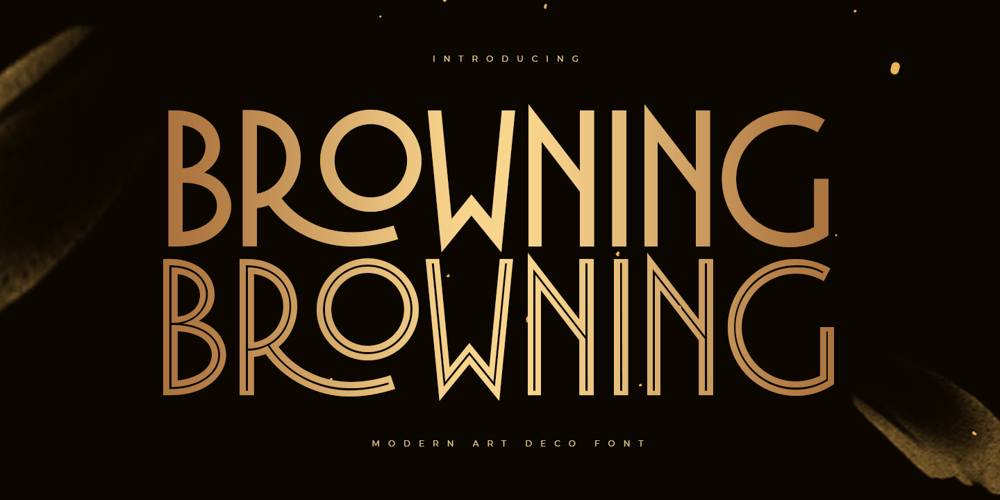
Browning
Browning font
Browning Font Family was designed by Zamroni Hamzah and published by Sensatype Studio. Browning contains 2 styles and family package options. A Luxury Modern Art Deco font that we created special for elegant branding needs, with extra ligatures in unique shape will be ready to add value of your brand. It so nice to leverage designer or product owner that need solutions to make their design look more Luxury and modern. And specially for Browning font, We prepared any ligatures and any unique characters to help you create unlimited variations for your creative needs.Browning Luxury Modern Art Deco font ready with: Regular and Inline Versions Any options to get creative variations (combination of Ligatures) 4 files of each weights format already Preview as a inspirations that you can do with Browning font Ready with Lowercase and Uppercase characters Wish you enjoy our font. 🙂